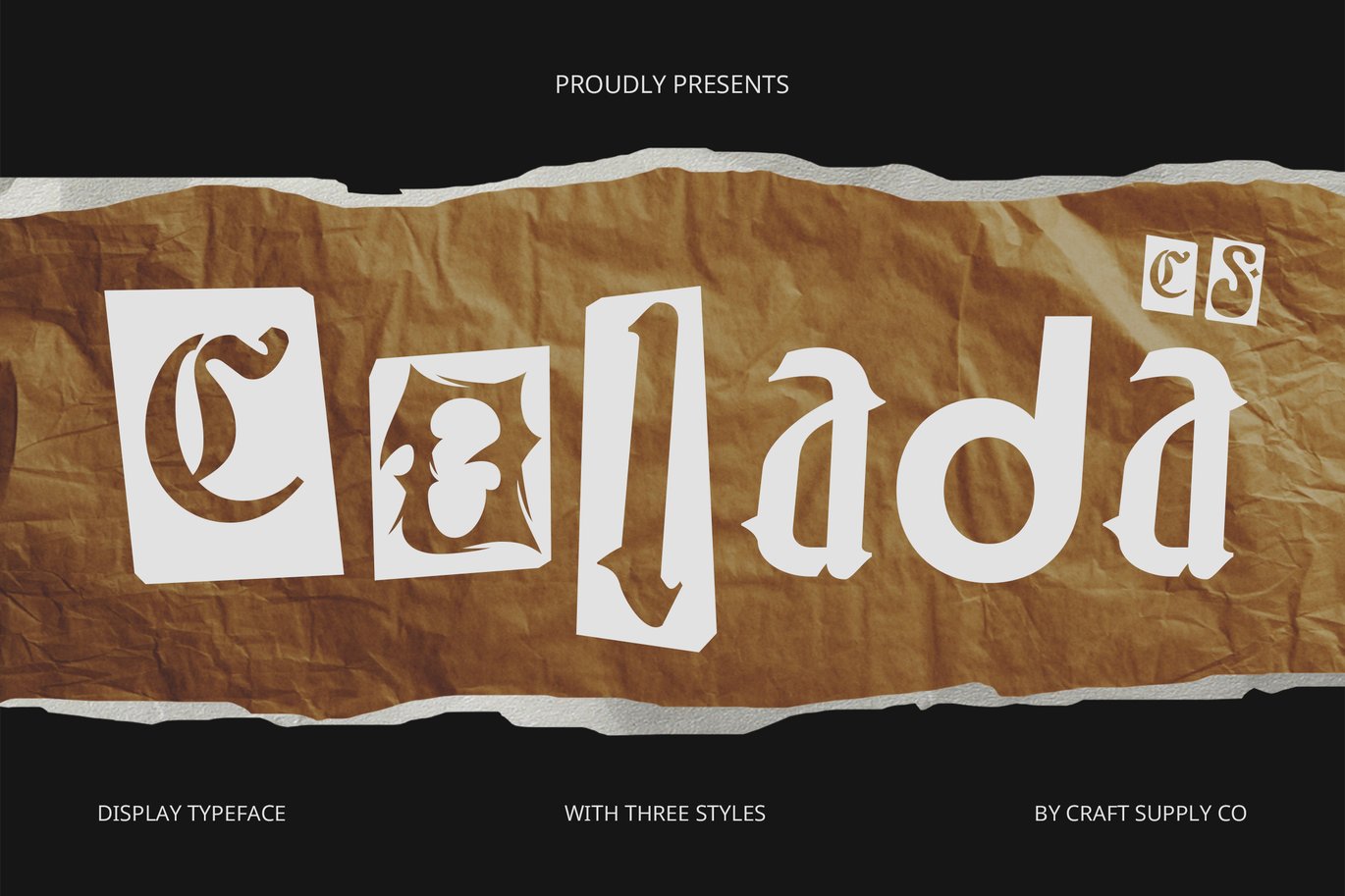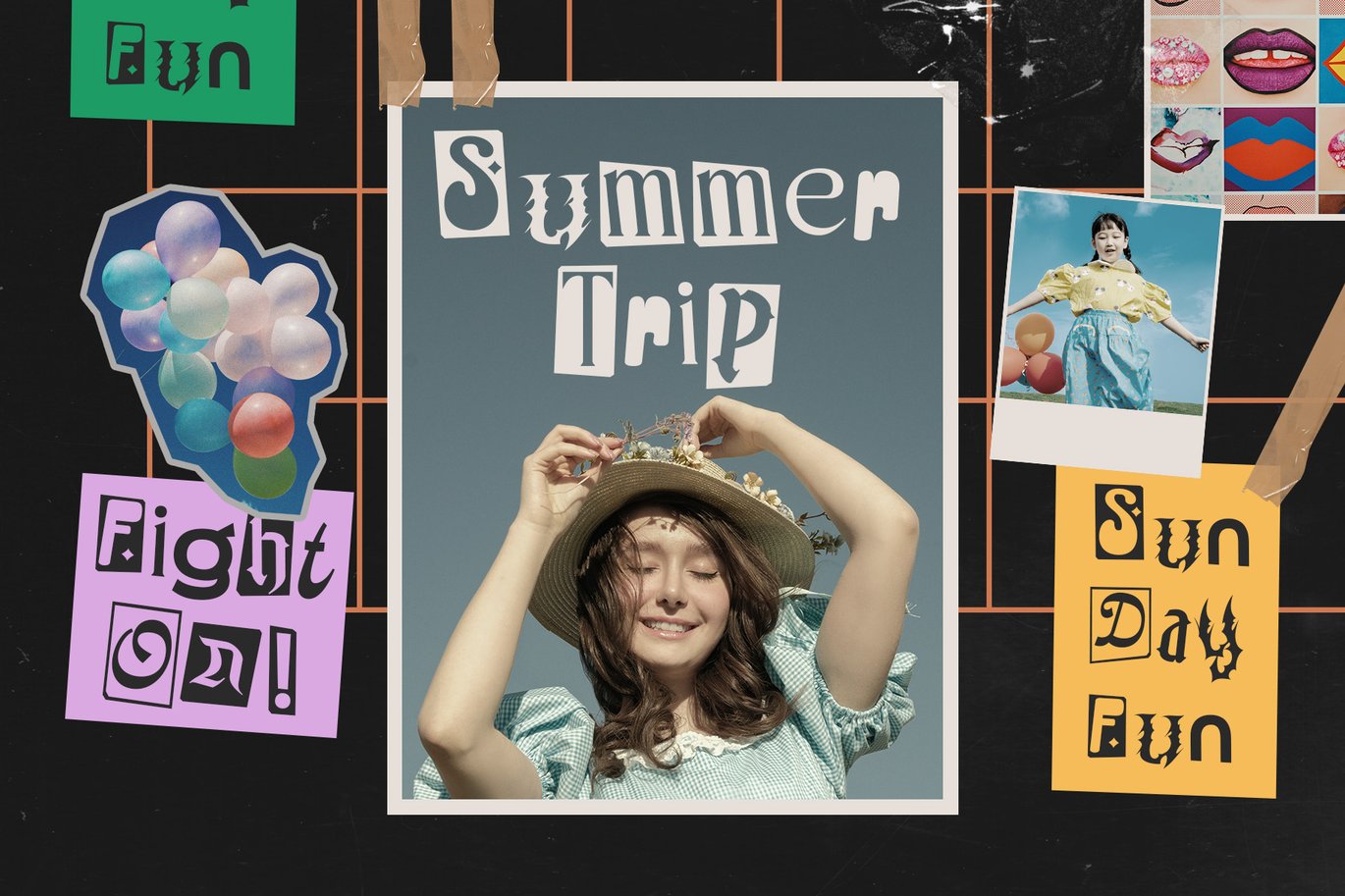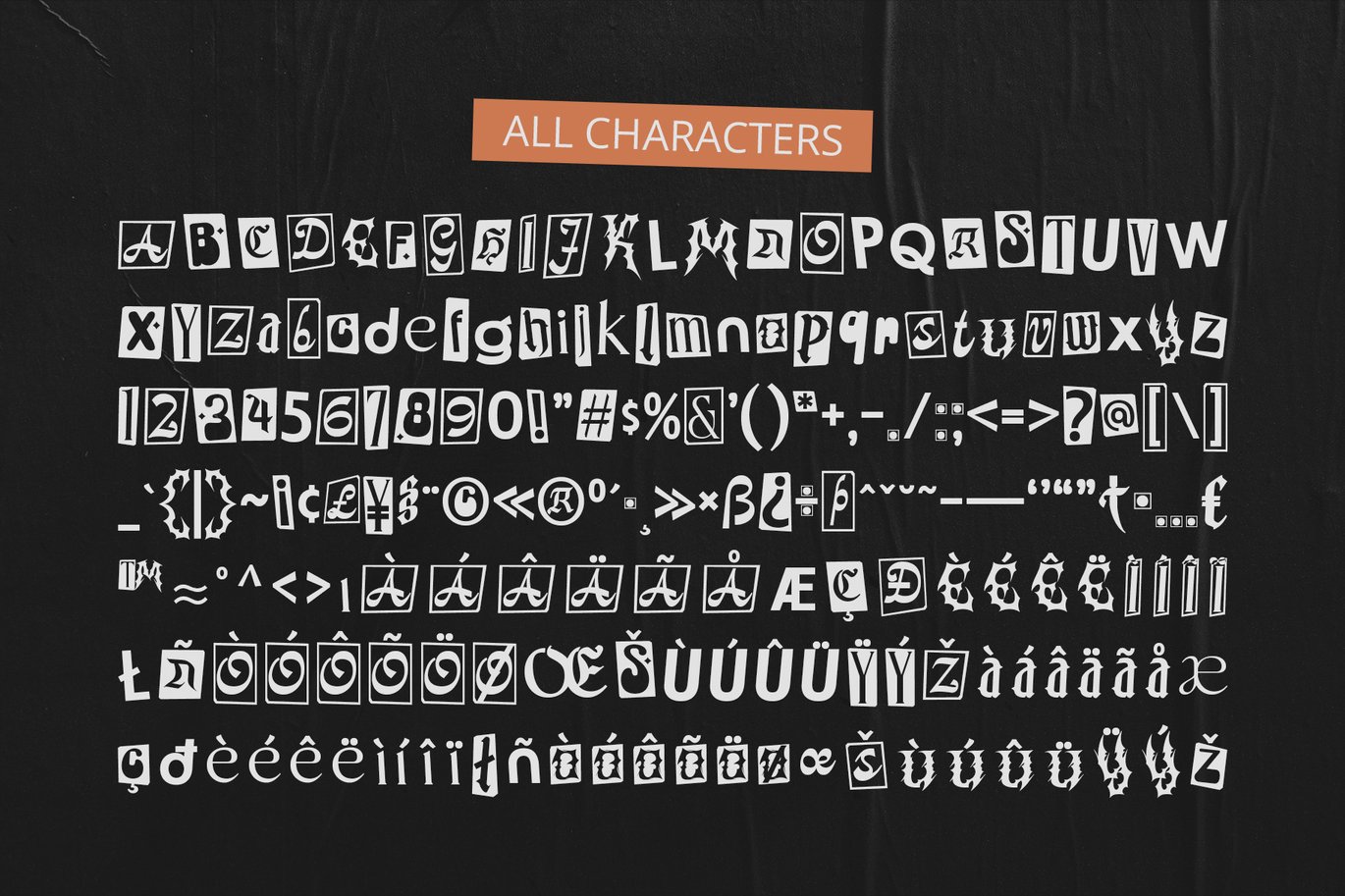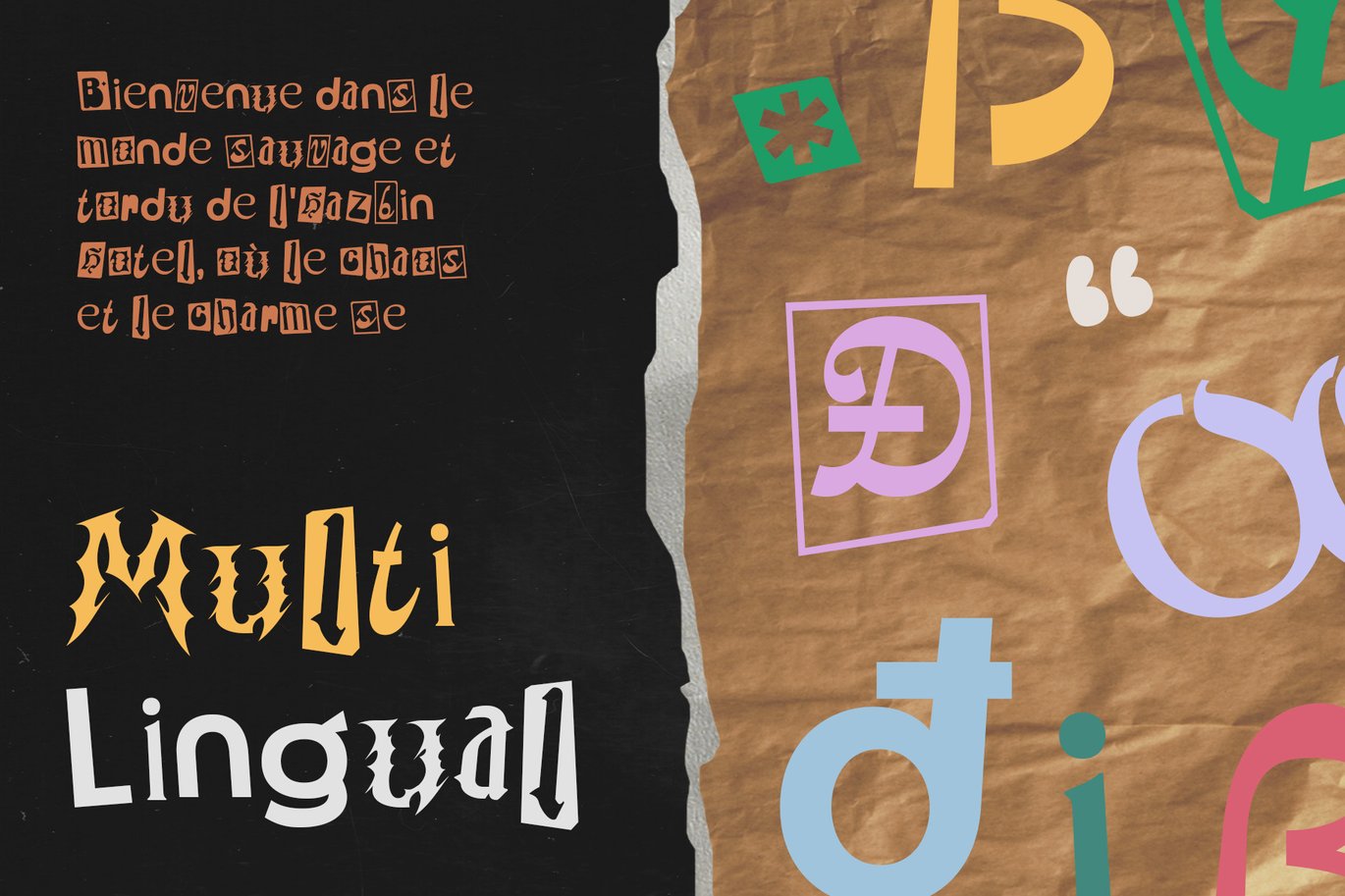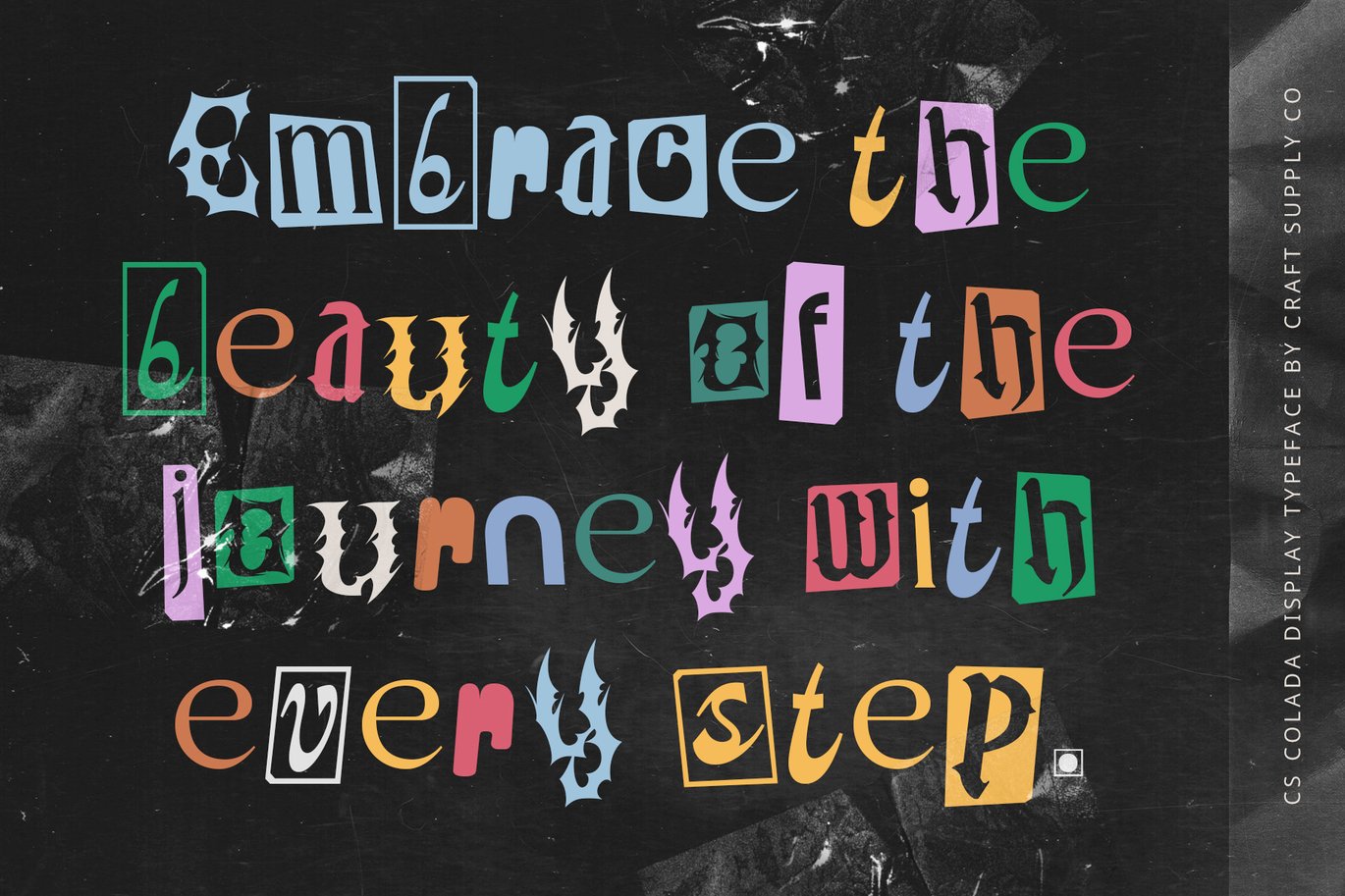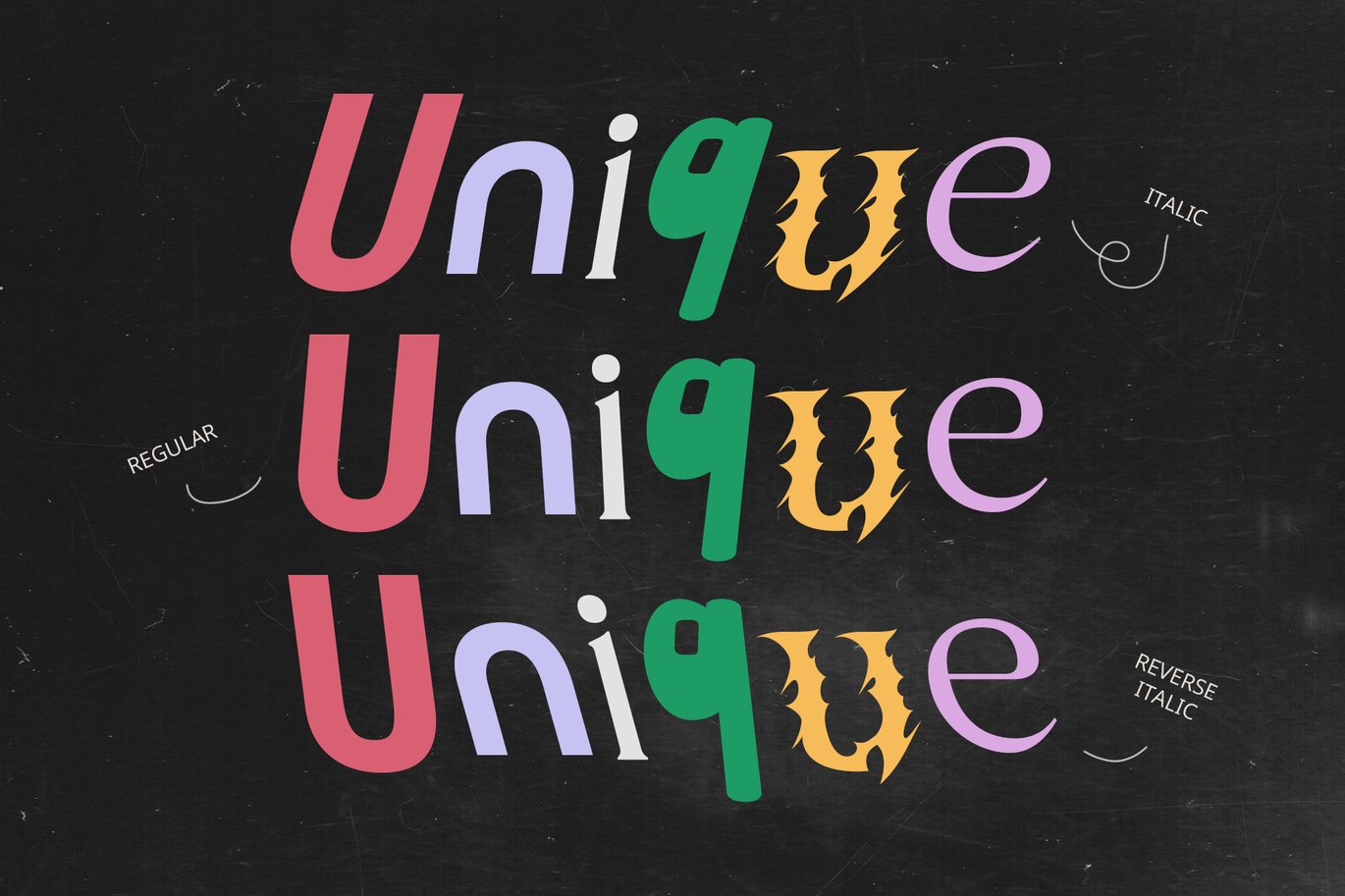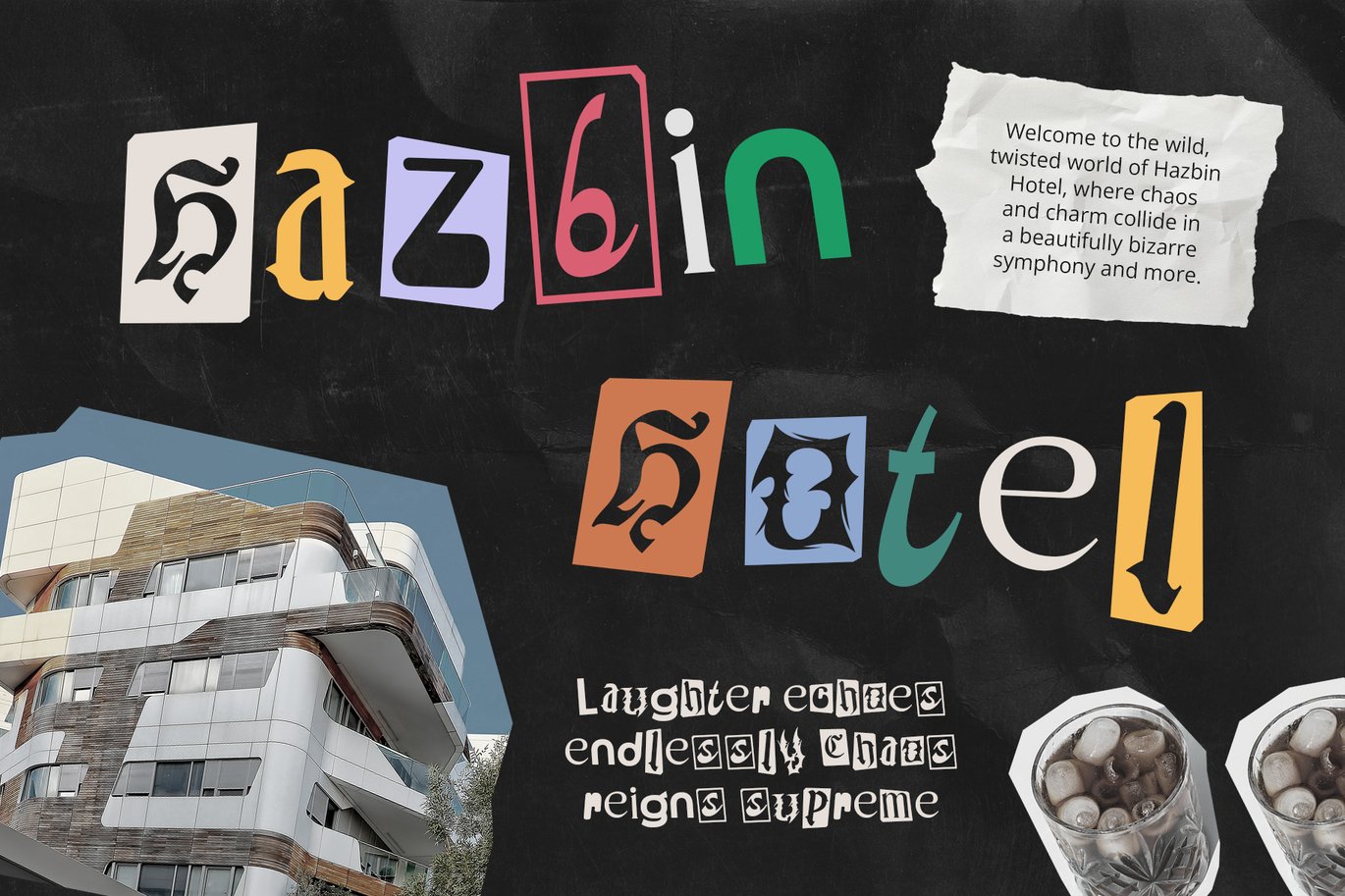
Colada – Collage Font
CS Colada – Embrace Eclectic Creativity
Collage Display Font with Unique Identity
CS Colada is a vibrant collage display font that showcases a variety of shapes, sizes, and styles, resulting in an eclectic and captivating look. Each letter possesses a unique identity, exuding creativity and artistry that inspires playful designs.
Funky and Playful for Joyful Projects
Perfect for designs that celebrate joy and imagination, CS Colada shines in applications such as event posters, children’s designs, and fun branding. Its funky elements and bold visuals ensure that every project is energized with a delightful and whimsical touch.
Dynamic Combinations that Captivate
With its dynamic and bold visual combinations, CS Colada is designed to grab attention. The variety of styles within the font allows for creative expression, making it an ideal choice for designers seeking to infuse their work with a sense of fun and excitement.
Versatile for Various Applications
Whether used for promotional materials, merchandise, or digital graphics, CS Colada offers versatility while maintaining a distinct character. Its captivating design makes it an excellent choice for any project that aims to stand out and evoke a sense of wonder.